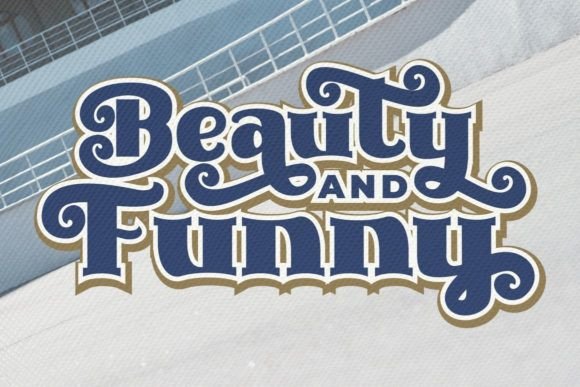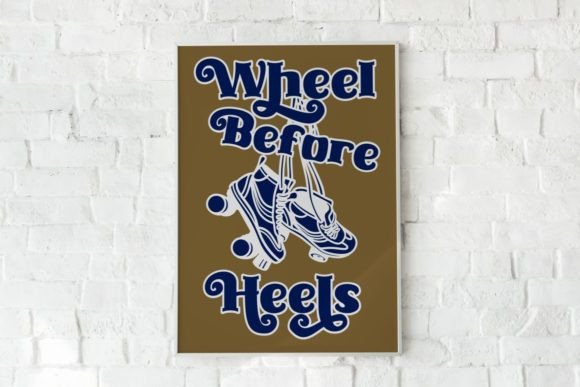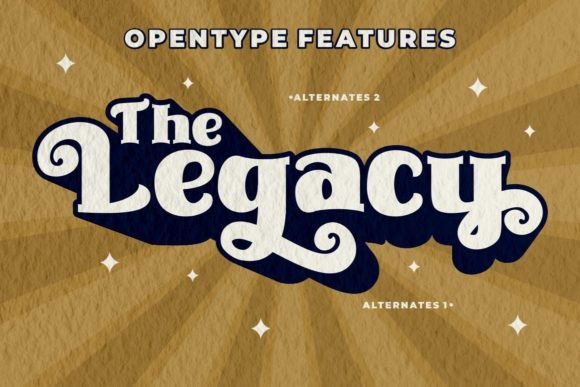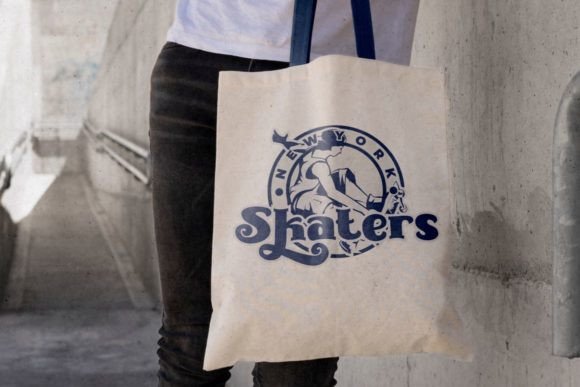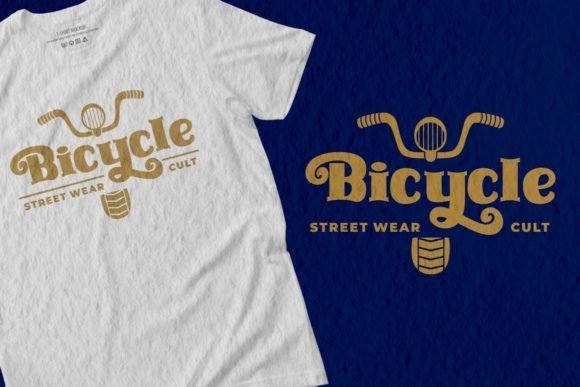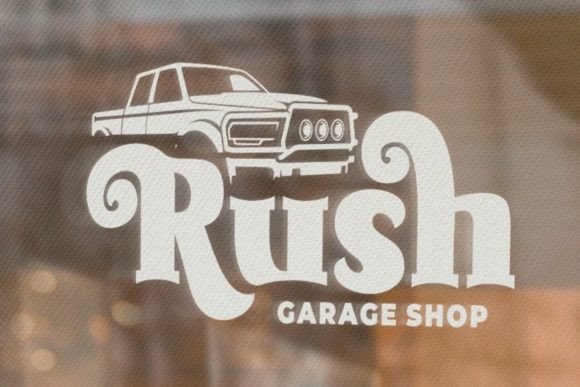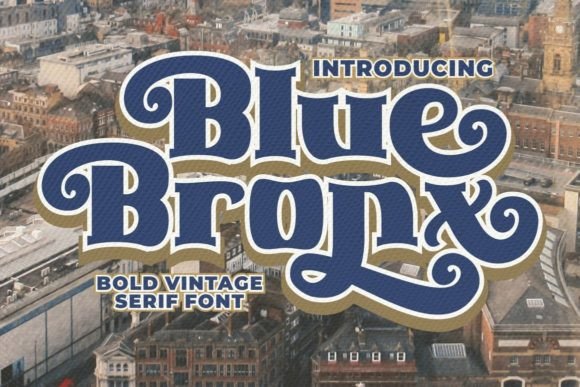
Introducing Blue Bronx Font: The Bold and Stylish Display Font for Daring Designs
In the world of typography, fonts play a crucial role in conveying the tone and personality of a brand or product. For designers and crafters looking to make a statement, a bold and stylish display font is essential. This is where Blue Bronx Font comes in – a striking and daring typeface perfect for product packaging, branding, and other projects that require cool and attention-grabbing typography.
What is Blue Bronx Font?
Blue Bronx Font is a bold and stylish display font designed to make a lasting impression. Its unique and edgy style sets it apart from other fonts, making it ideal for projects that require a touch of sophistication and daringness. Whether you’re working on product packaging, branding, or advertising materials, Blue Bronx Font is sure to grab attention and leave a lasting impact.
Key Features of Blue Bronx Font
- Bold and Stylish: Blue Bronx Font boasts a bold and stylish design that’s perfect for making a statement.
- Display Font: This font is specifically designed as a display font, making it ideal for headlines, titles, and other attention-grabbing applications.
- Cool and Daring: With its unique and edgy style, Blue Bronx Font adds a touch of coolness and daringness to any project.
- Versatile: This font can be used for a wide range of projects, including product packaging, branding, advertising materials, and more.
Use Cases for Blue Bronx Font
Blue Bronx Font is an incredibly versatile typeface that can be used in a variety of contexts. Here are some use cases where this font truly shines:
- Product Packaging: Add a touch of sophistication and style to your product packaging with Blue Bronx Font. Perfect for luxury brands, cosmetics, and food products.
- Branding: Establish a bold and daring brand identity with Blue Bronx Font. Ideal for companies that want to make a statement and stand out from the competition.
- Advertising Materials: Use Blue Bronx Font to create eye-catching advertising materials, such as billboards, posters, and flyers.
- Social Media Graphics: Add a touch of style and sophistication to your social media graphics, such as Instagram posts and Facebook ads.
Tips for Using Blue Bronx Font
To get the most out of Blue Bronx Font, here are some tips to keep in mind:
- Use it sparingly: Due to its bold and stylish nature, Blue Bronx Font works best when used sparingly. Use it for headlines and titles, and pair it with a simpler font for body text.
- Experiment with colors: Blue Bronx Font looks great in a variety of colors. Experiment with different colors to find the perfect combination for your project.
- Pair it with images: Blue Bronx Font works great when paired with high-quality images. Use it to add context and meaning to your visuals.
In conclusion, Blue Bronx Font is a bold and stylish display font that’s perfect for designers and crafters looking to add a touch of sophistication and daringness to their projects. With its unique and edgy style, this font is sure to grab attention and leave a lasting impact. Whether you’re working on product packaging, branding, or advertising materials, Blue Bronx Font is an excellent choice.